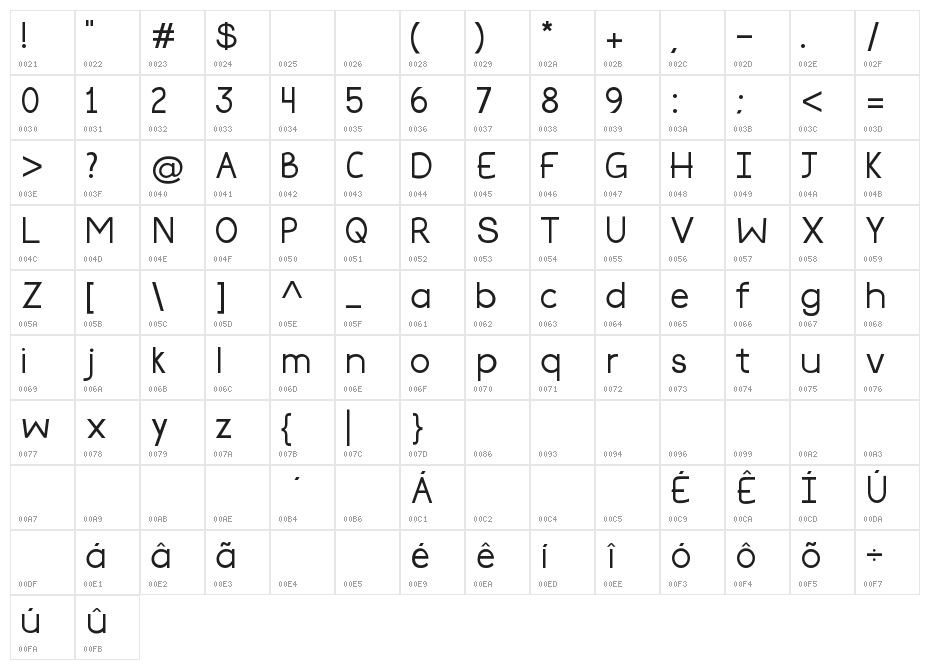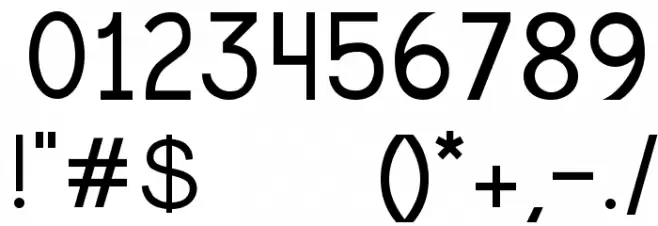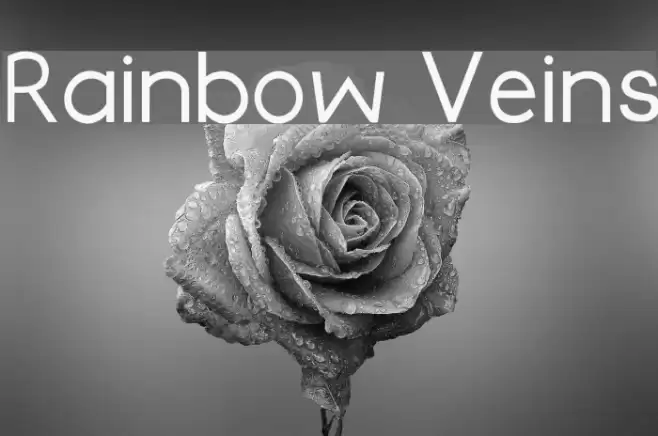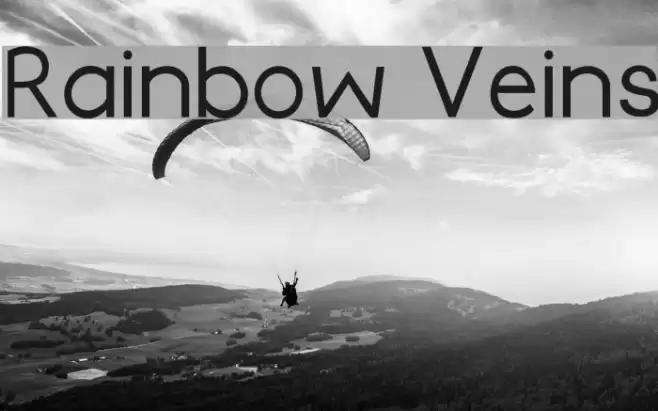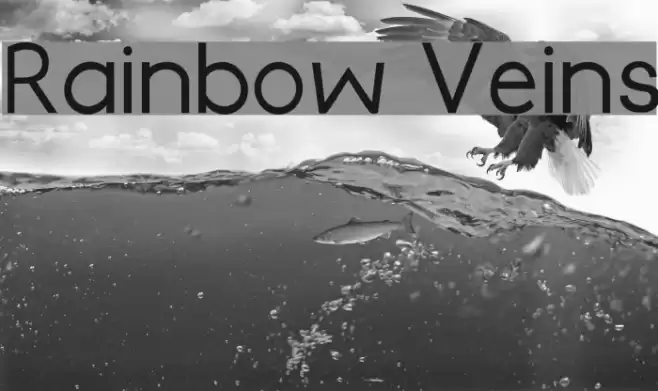
Rainbow Veins Font
Rainbow Veins Description
This font features a clean and modern sans-serif style with a geometric influence. The characters are evenly spaced, providing a balanced and harmonious appearance. The uppercase letters are bold and assertive, while the lowercase letters maintain a friendly and approachable demeanor. The numerals are clear and legible, making them suitable for various applications. Special characters are designed with simplicity in mind, ensuring they blend seamlessly with the rest of the font. The overall design is versatile, making it suitable for both digital and print media.
| Use Case | Headlines, Body text, Logos |
| Proposed Projects | Ideal for branding, web design, advertising, and editorial layouts. |